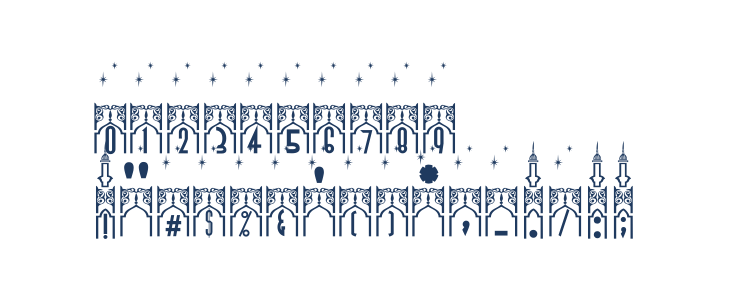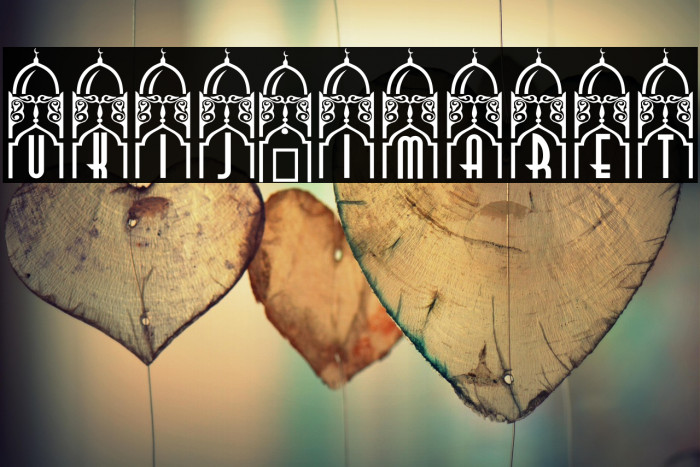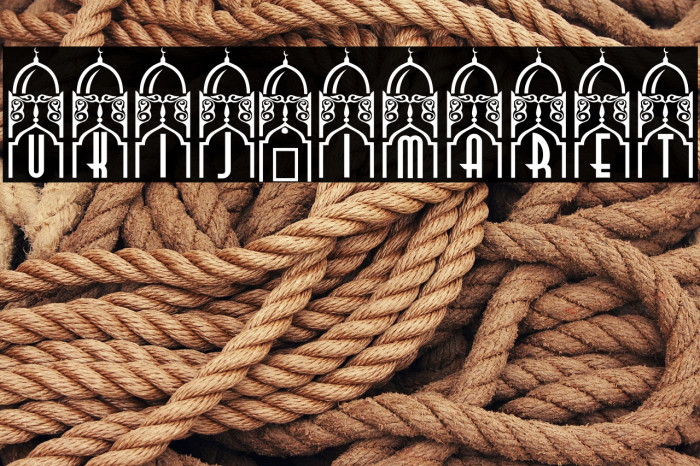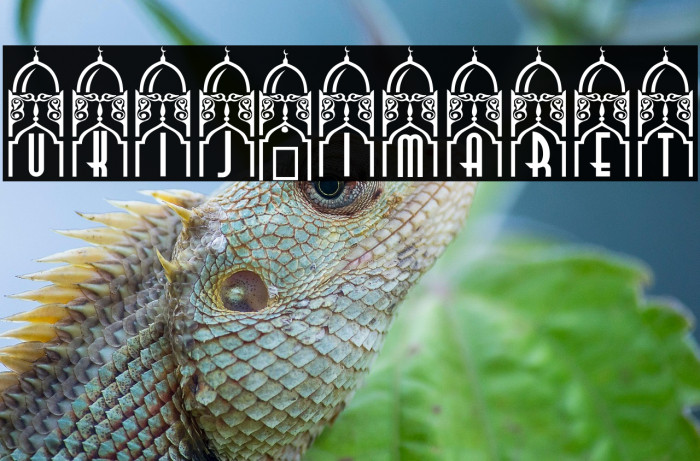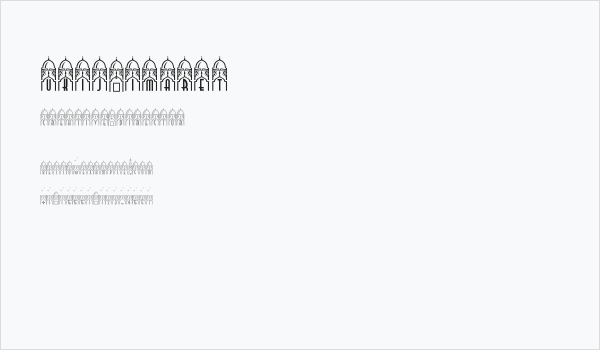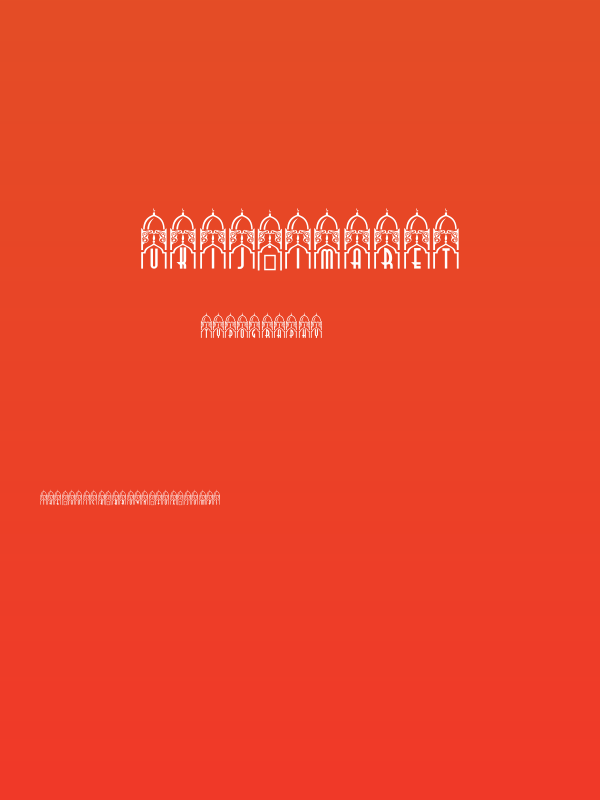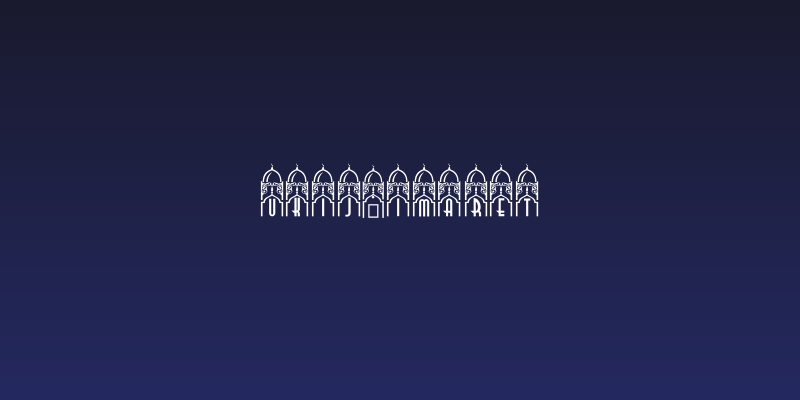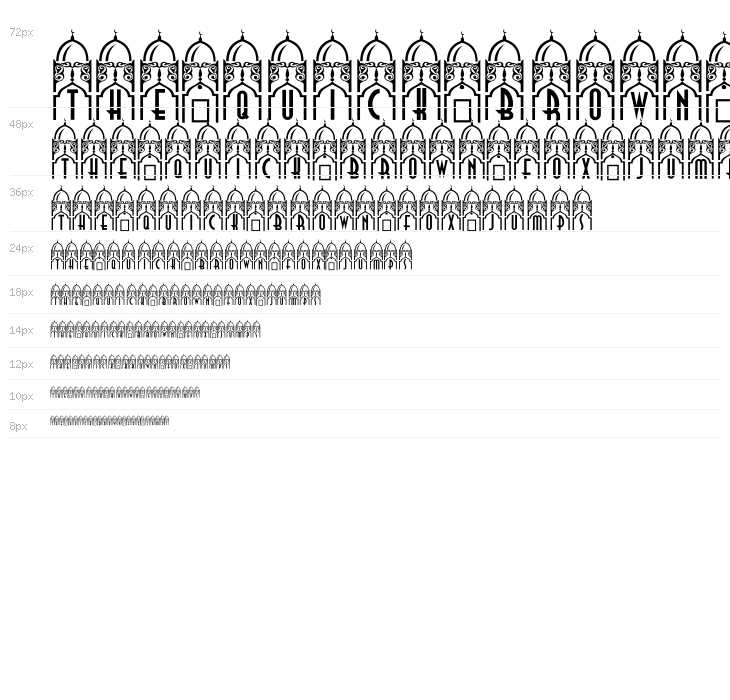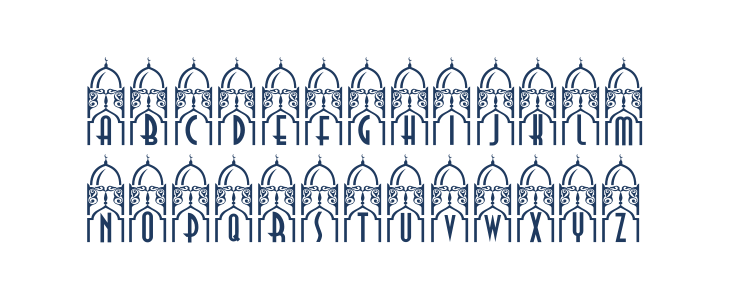
UKIJ Imaret Font
UKIJ Imaret Description
This font features an intricate and decorative design, reminiscent of architectural elements found in traditional Middle Eastern structures. Each character is enclosed within a stylized archway, complete with ornate detailing and a domed top. The letters themselves are bold and geometric, providing a striking contrast to the elaborate frames. The overall aesthetic is both historical and artistic, making it suitable for projects that require a touch of cultural elegance and sophistication. The numbers and special characters follow the same design principles, ensuring consistency throughout the font.
| Proposed Projects | Ideal for cultural event posters, themed invitations, or branding that seeks to evoke a sense of historical elegance. |